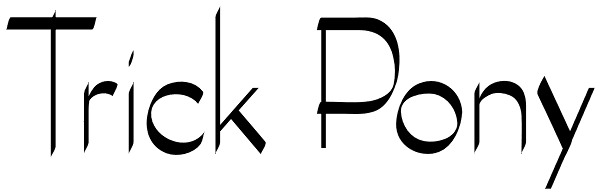
Trick Pony
Trick Pony is a typeface bastard that steals its characteristics from sans serif fonts and combines these with an ink brush appearance. The design is strictly reduced on the one hand, but on the other gets its handmade touch through varying stroke...